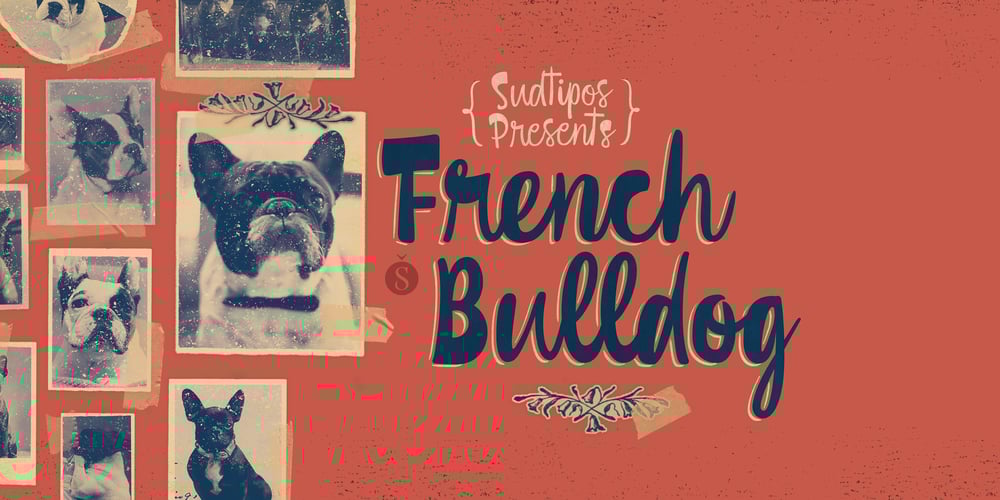
French Bulldog Font Family was designed by Alejandro Paul, Carolina Marando and published by Sudtipos. French Bulldog contains 1 styles and family package options. Day after day we are running from here to there, living in a society that does not allow us to slow down for a minute. Having so many things on our minds, we often unnecessarily complicate our problems, and our stress is so great that we forget what happiness is. French Bulldog was made to celebrate the unnoticed precious little moments. A hot coffee in the morning, the sea breeze on your face, the sweet smell of a flower, a nap with your dog, a meeting with friends, the tenderness of a maternal caress, traveling, walking, crying, sharing, feeling, being onesself. French Bulldog creates spontaneity from chaos with different shapes working randomly to form finesse or coarseness, just like a casual hand works a brush and tries to follow the rules with unpredictable results. It is versatile and fresh, friendly and relaxed. Flow in the moment.